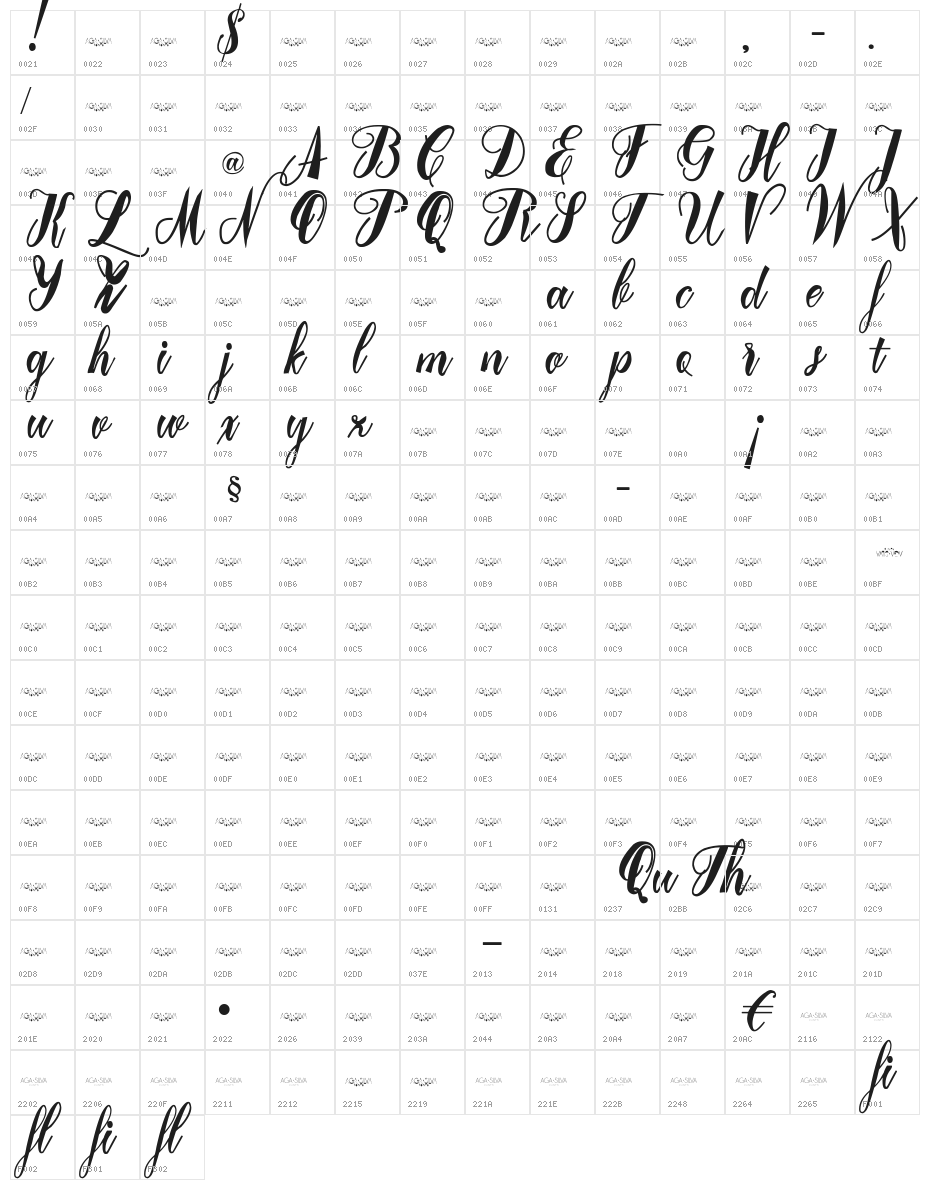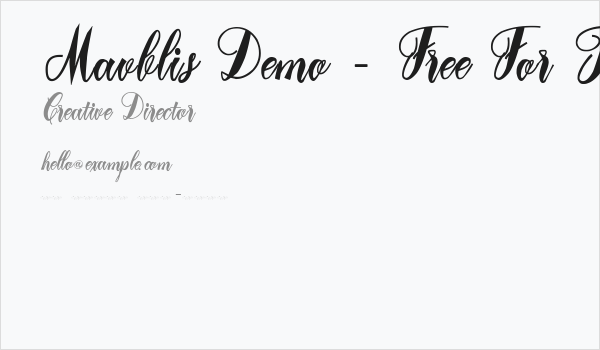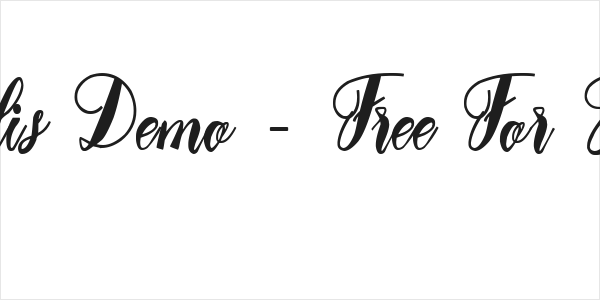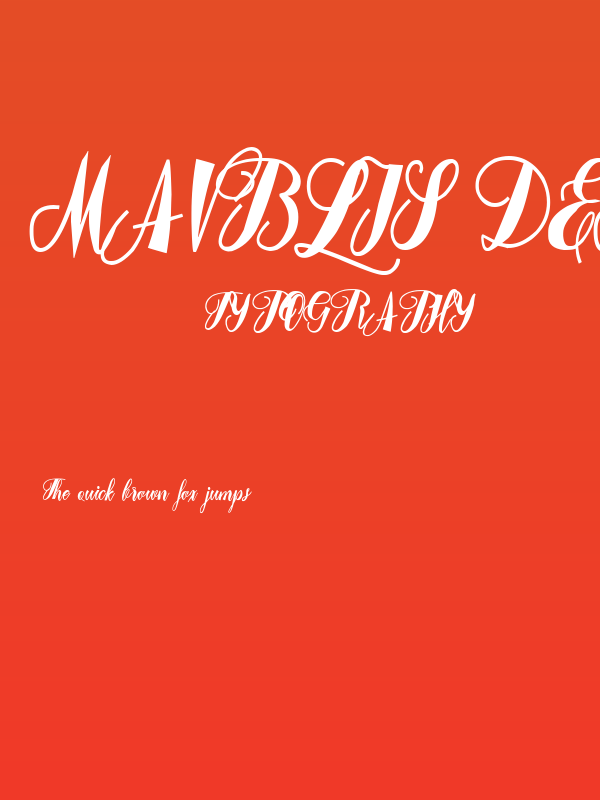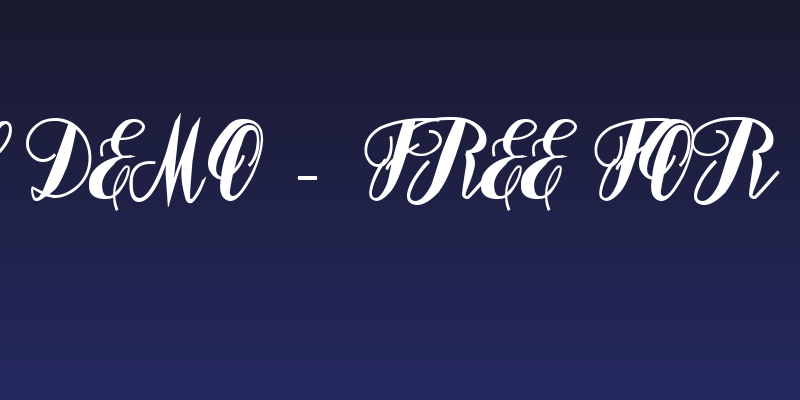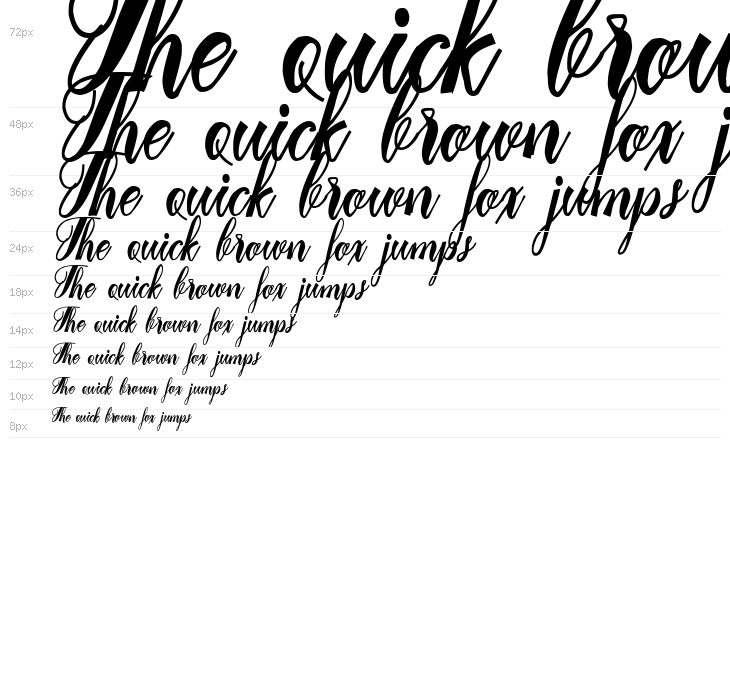
Mavblis Demo - Free For Persona Font
Mavblis Demo - Free For Persona Description
This font features an elegant and flowing script style, characterized by its cursive, hand-drawn appearance. The letters are interconnected, creating a seamless and fluid look. The uppercase letters are ornate with flourishes, while the lowercase letters maintain a consistent and smooth flow. The font exudes a sense of sophistication and grace, making it ideal for formal and decorative uses. The characters are well-balanced, with a slight slant that enhances the cursive effect. The special characters maintain the same stylistic features, ensuring a cohesive look across all glyphs.
| Proposed Projects | Ideal for wedding invitations, elegant branding, greeting cards, and decorative signage. |